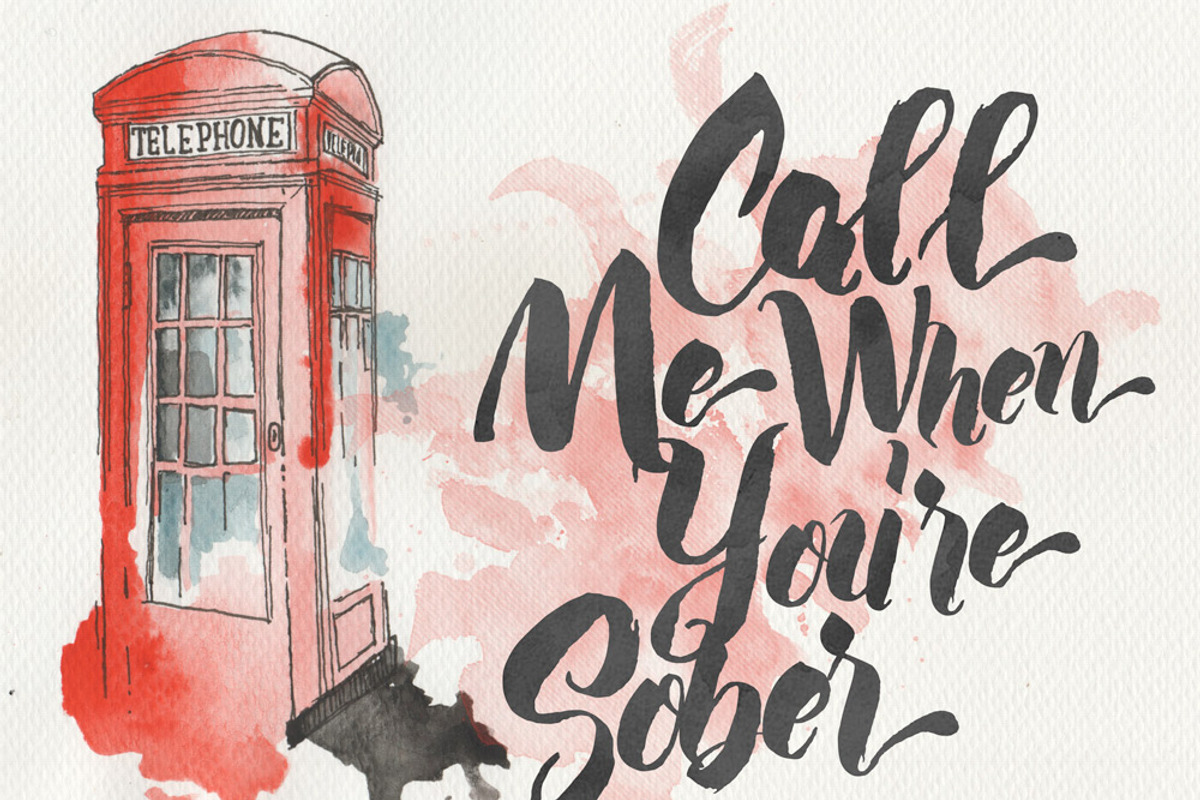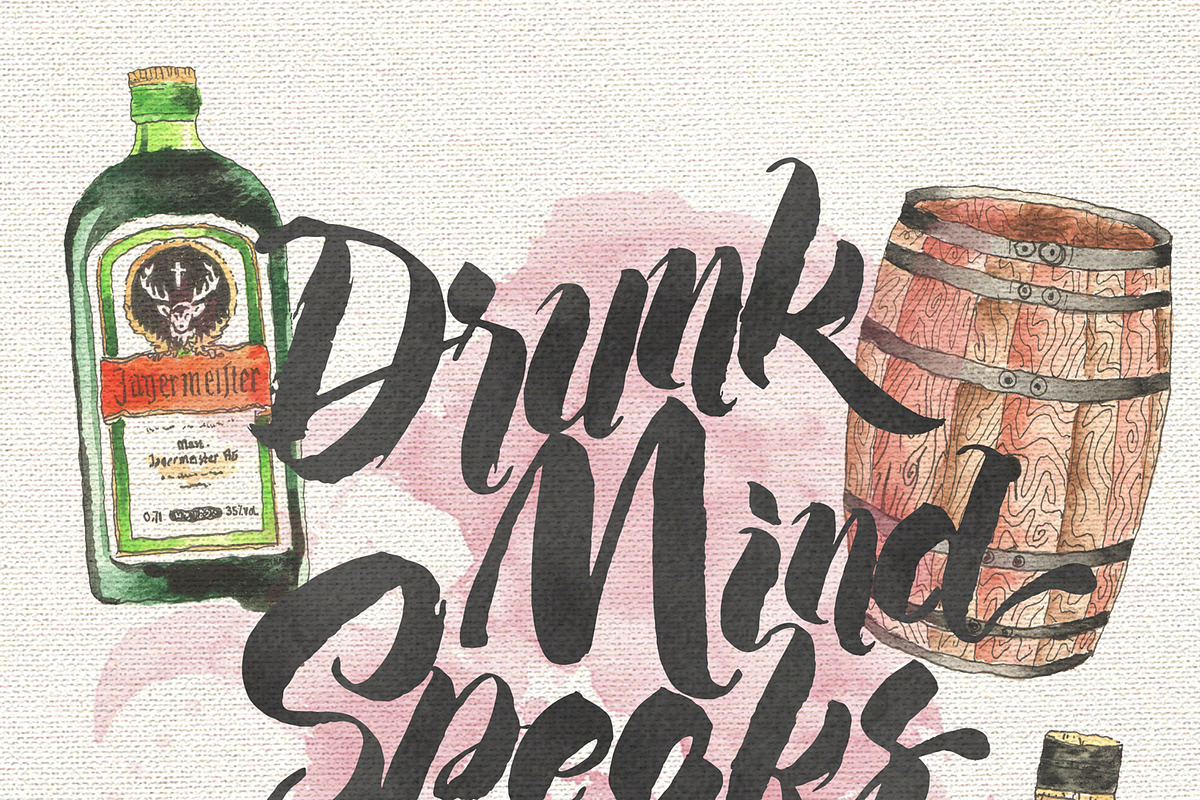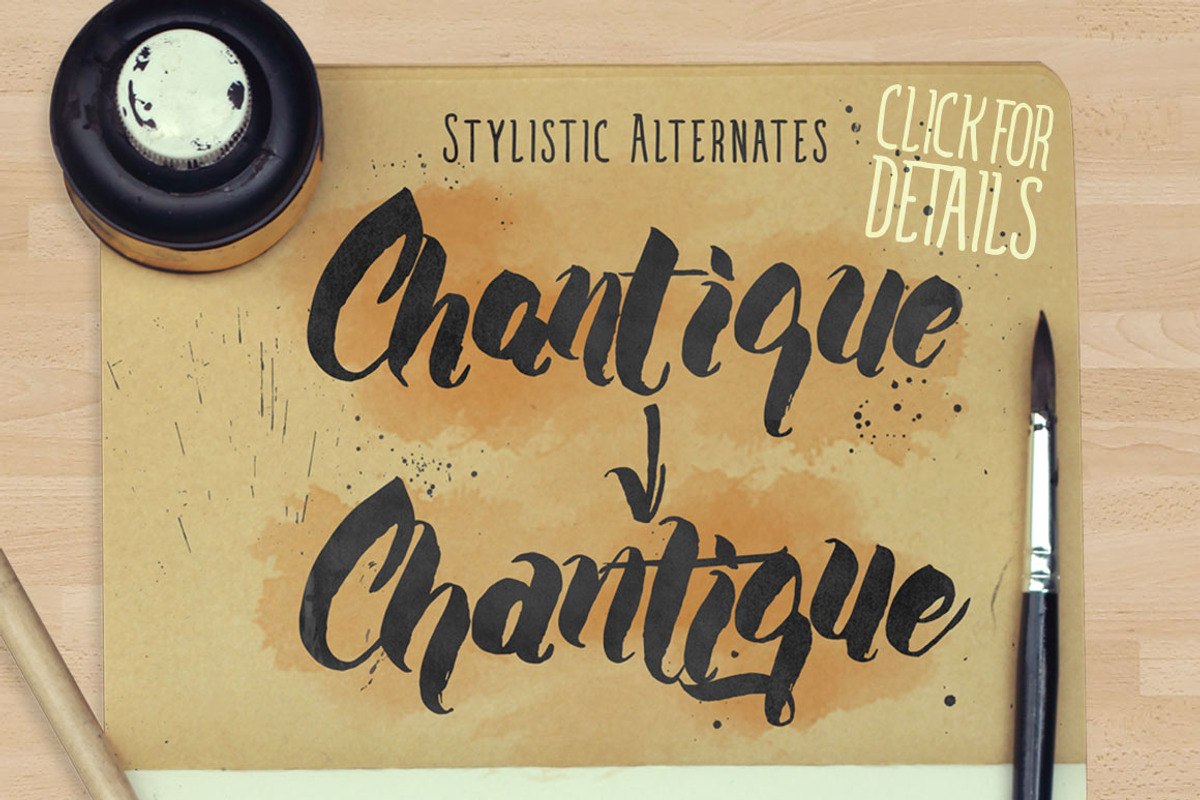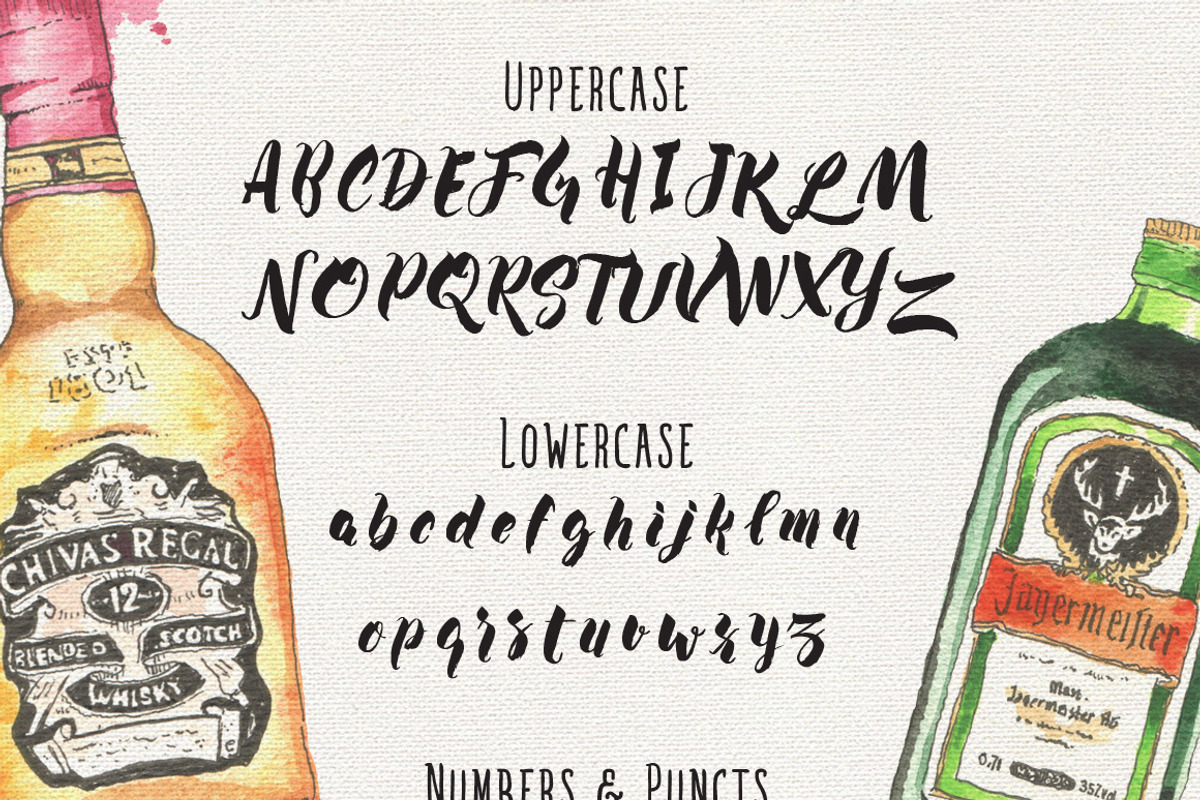
Wanderlove brush script font
Wanderlove brush script font by Konstantine Studio is a font selected for branding, posters, packaging, typography.
- Contextual Alternates
Why Wanderlove brush script font is worth a look
Wanderlove brush script font by Konstantine Studio fits naturally into Branding, posters, packaging, typography.